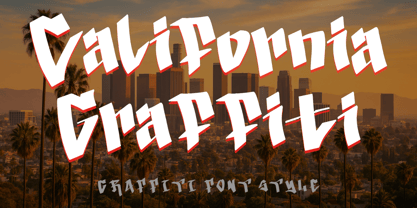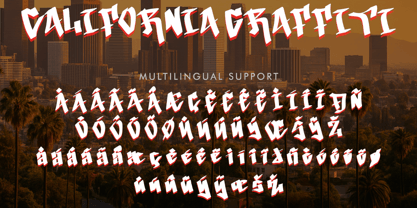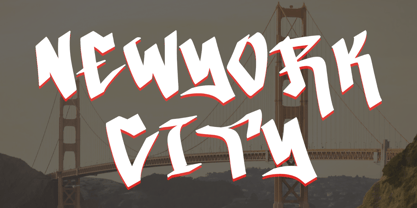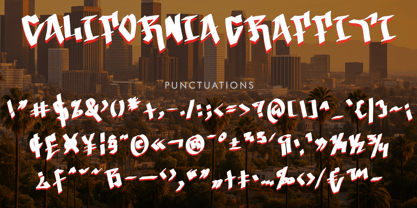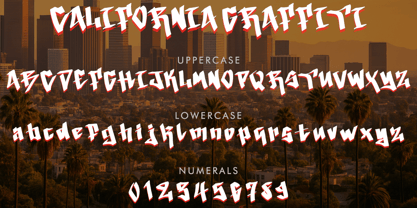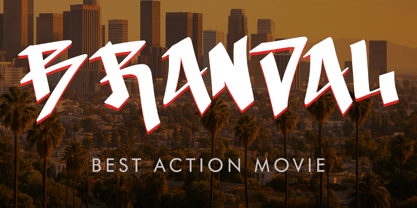
California Graffiti
by Yoga Letter
The California Graffiti Font Family was designed by Isroni Yoga Prasetya and published by Yoga Letter. California Graffiti contains 1 styles. More about this family
"California Graffiti" is a unique and elegant graffiti font. It features uppercase and lowercase letters, numerals, punctuation, and multilingual support. It's perfect for Christmas, Halloween, winter, spring, New Year, tattoos, stickers, banners, posters, logos, prints, branding, photography, holidays, vacations, street graffiti, wall graffiti, and more.
Designers: Isroni Yoga Prasetya
Foundry: Yoga Letter